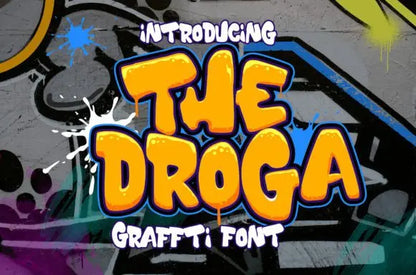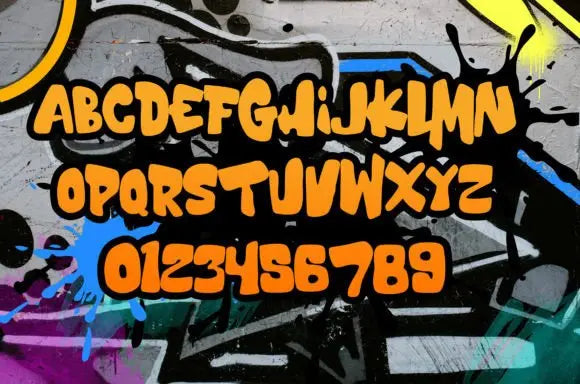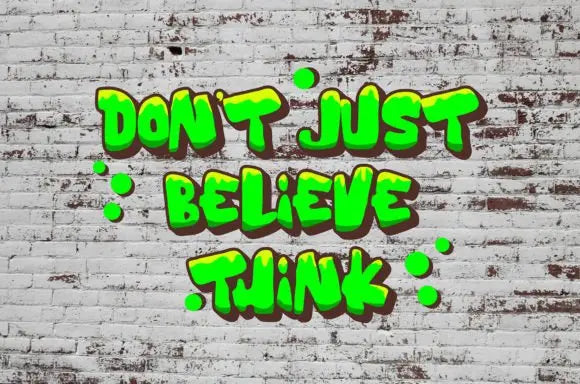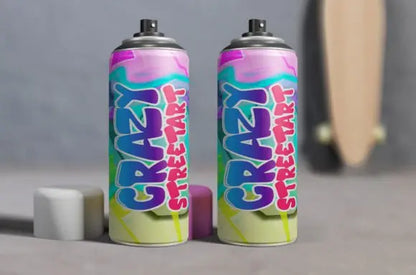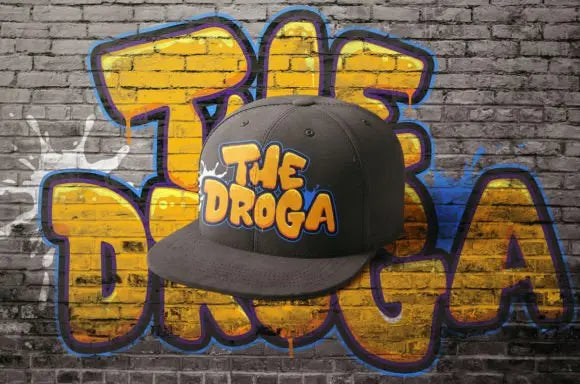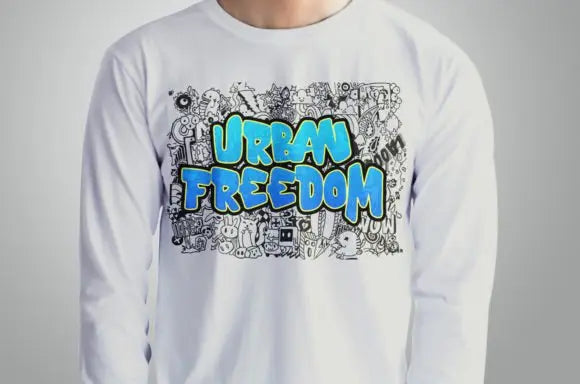
The Droga Font
Make an Impact with The Droga Font
Why Choose The Droga Font for Your Projects?
If you need a font that exudes energy and confidence, The Droga Font is the perfect fit. Designed for bold branding, dynamic typography, and statement-making visuals, this font is a must-have for modern designers.
The Droga Font – Power, Edge & Modernity
With its sharp edges and high-impact letterforms, The Droga Font is ideal for music branding, urban fashion, and product packaging. Whether you’re designing for streetwear brands or edgy advertising, this font adds a modern, rebellious touch.
Key Features of The Droga Font:
✦ Edgy & Bold Typography – Great for branding, posters, and merchandise.
✦ Sharp & Modern Aesthetic – Makes any design stand out.
✦ Perfect for Print & Digital – Works seamlessly with logos, ads, and apparel.
Dominate the design scene with The Droga Font – bold, fearless, and stylish!